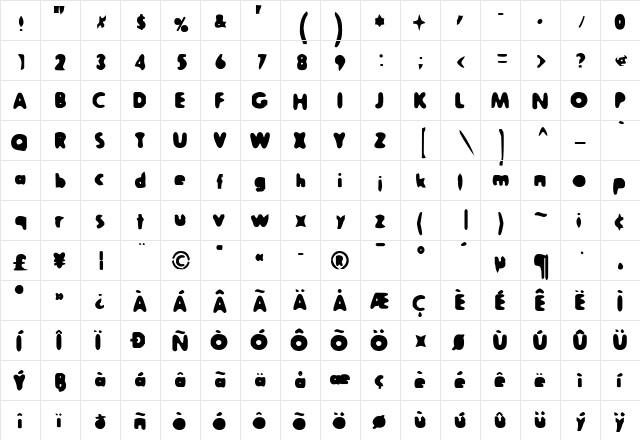
Outahere Bold
Design Context for Outahere Typeface
Outahere is a composed and adaptable typeface that performs quietly and consistently across a wide range of design contexts. The heavy weight commands attention and anchors typographic hierarchies.